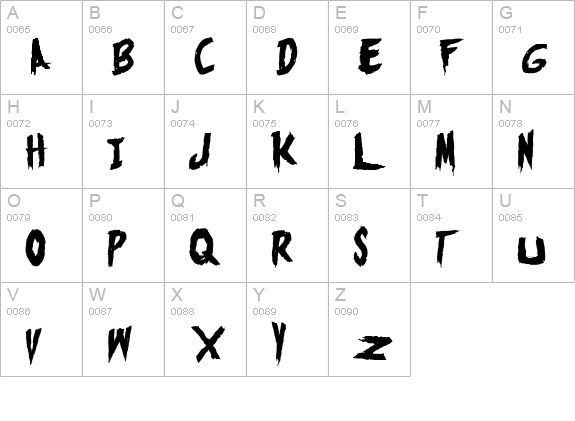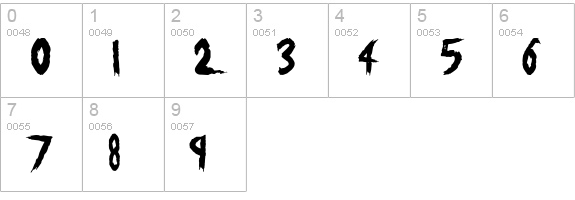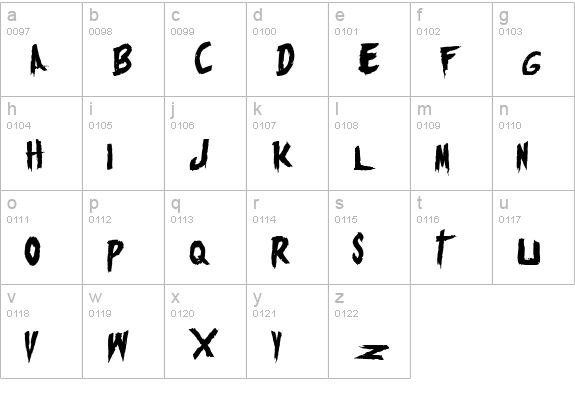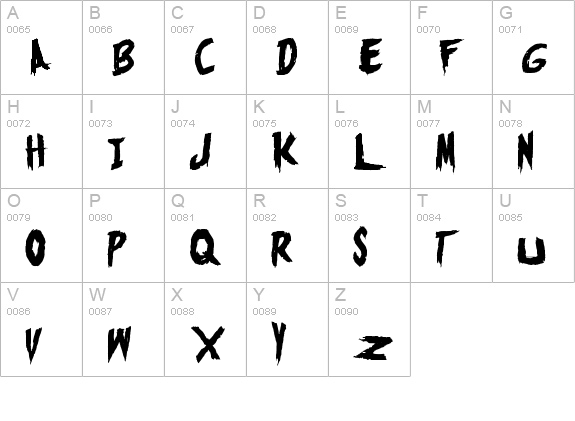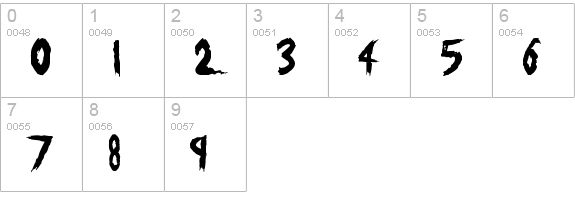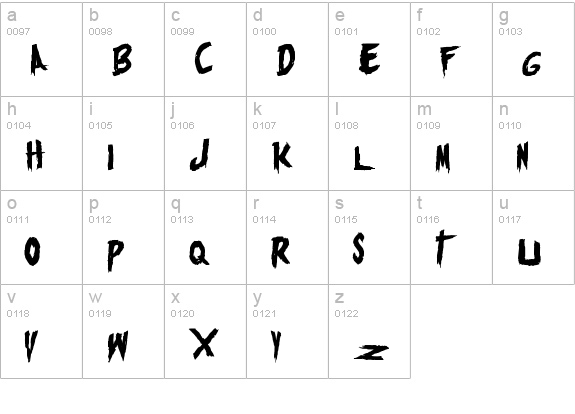
Monsters Attack! Font Details
Monsters Attack! font is a playful and quirky typeface that adds a touch of fun and whimsy to any design project. With its bold and eye-catching characters, this font is perfect for creating attention-grabbing headlines, posters, and invitations. The unique and monstrous shapes of the letters give your text a distinctive and memorable look. Best of all, Monsters Attack! font is available for free download at FontsMarket.com. Whether you're a graphic designer, illustrator, or just someone looking to add a bit of personality to your creations, this font is a must-have in your toolkit. Don't miss out on the opportunity to unleash the playful power of Monsters Attack! font in your next project. Download it today and let your creativity run wild!